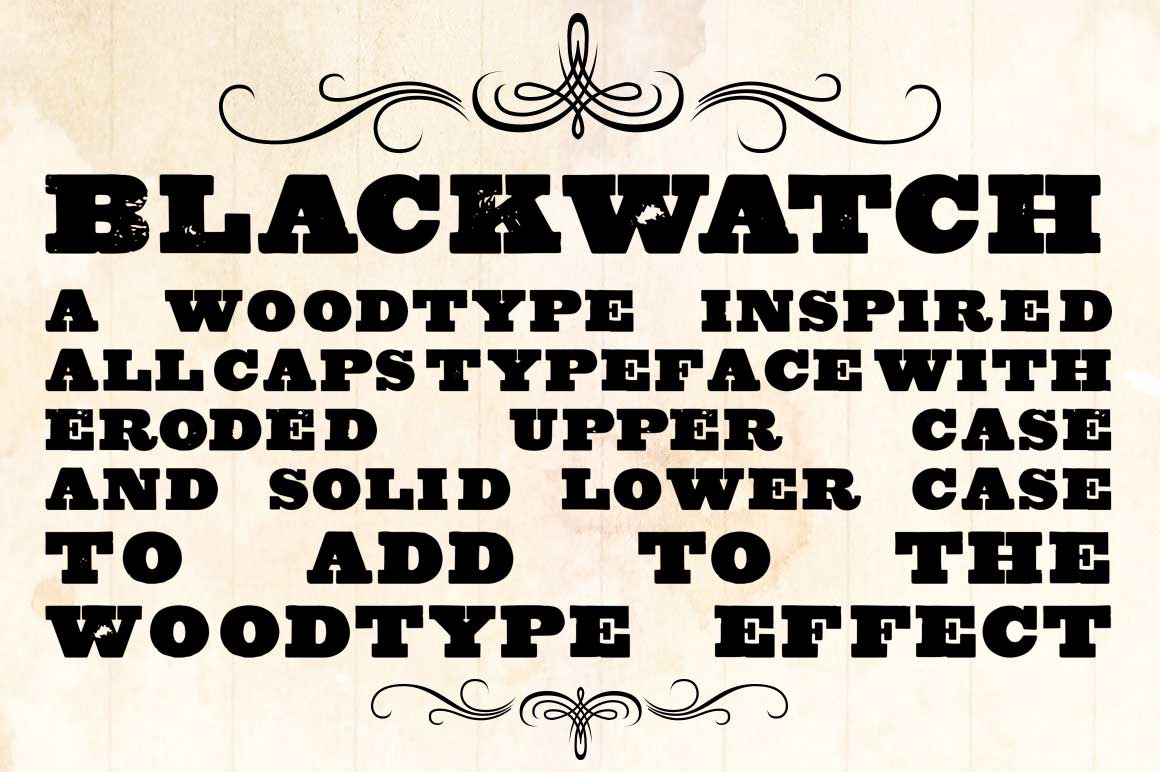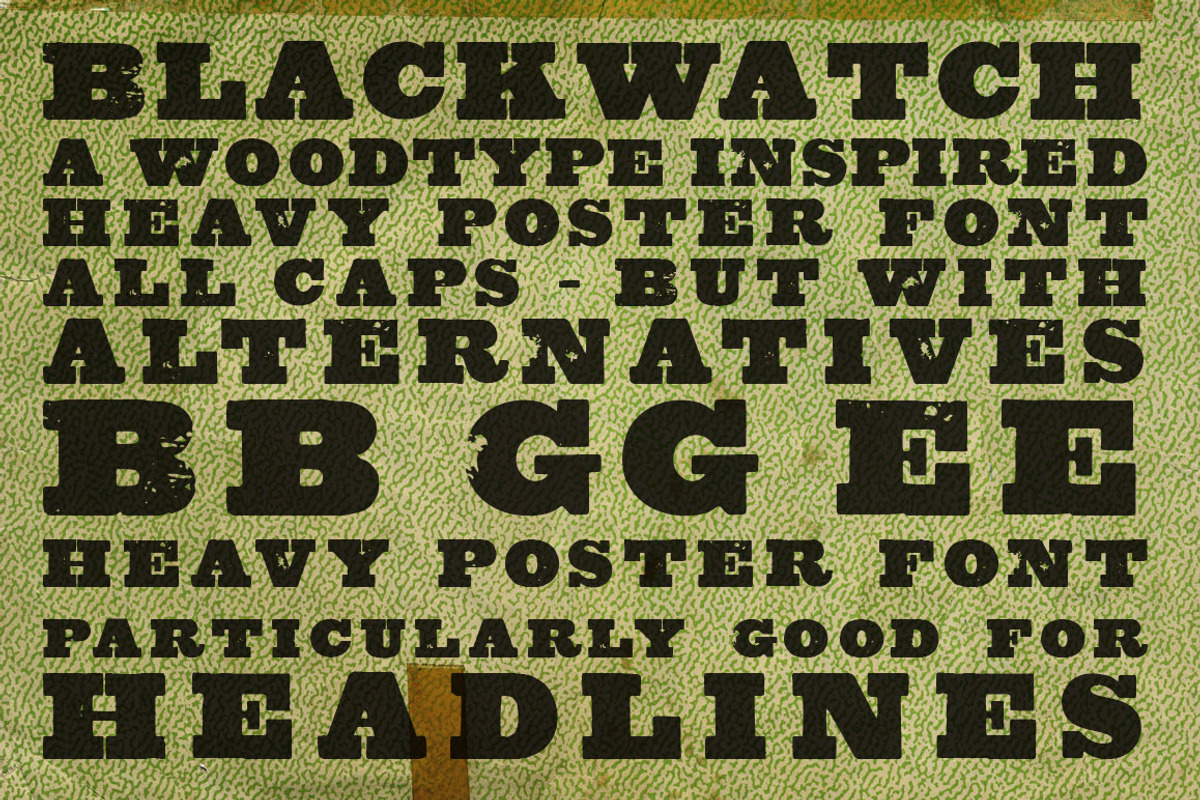
Blackwatch Woodblock Font
A wood type inspired slab serif typeface where the upper case is eroded and the lower case is solid for a more realistic wood type effect.